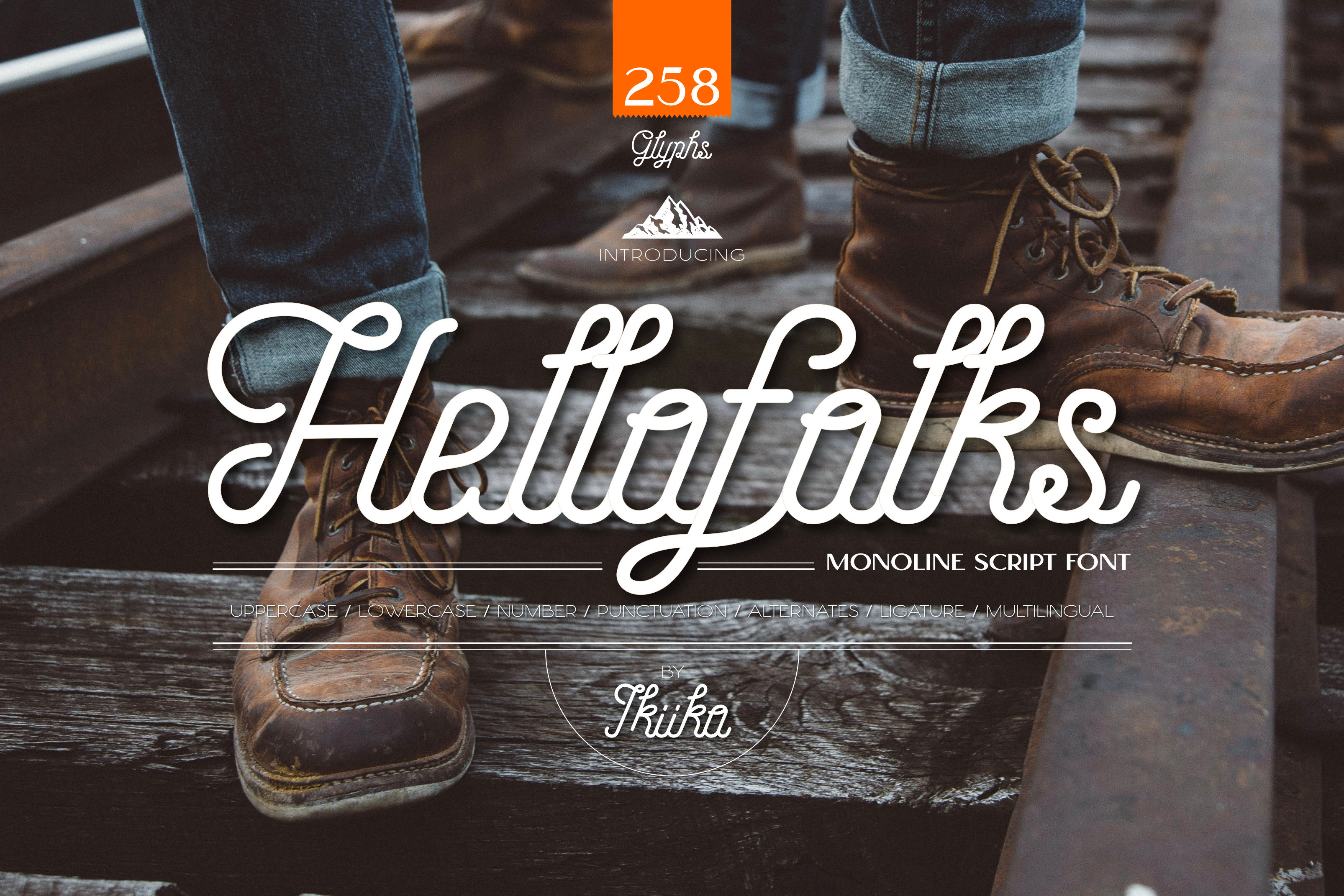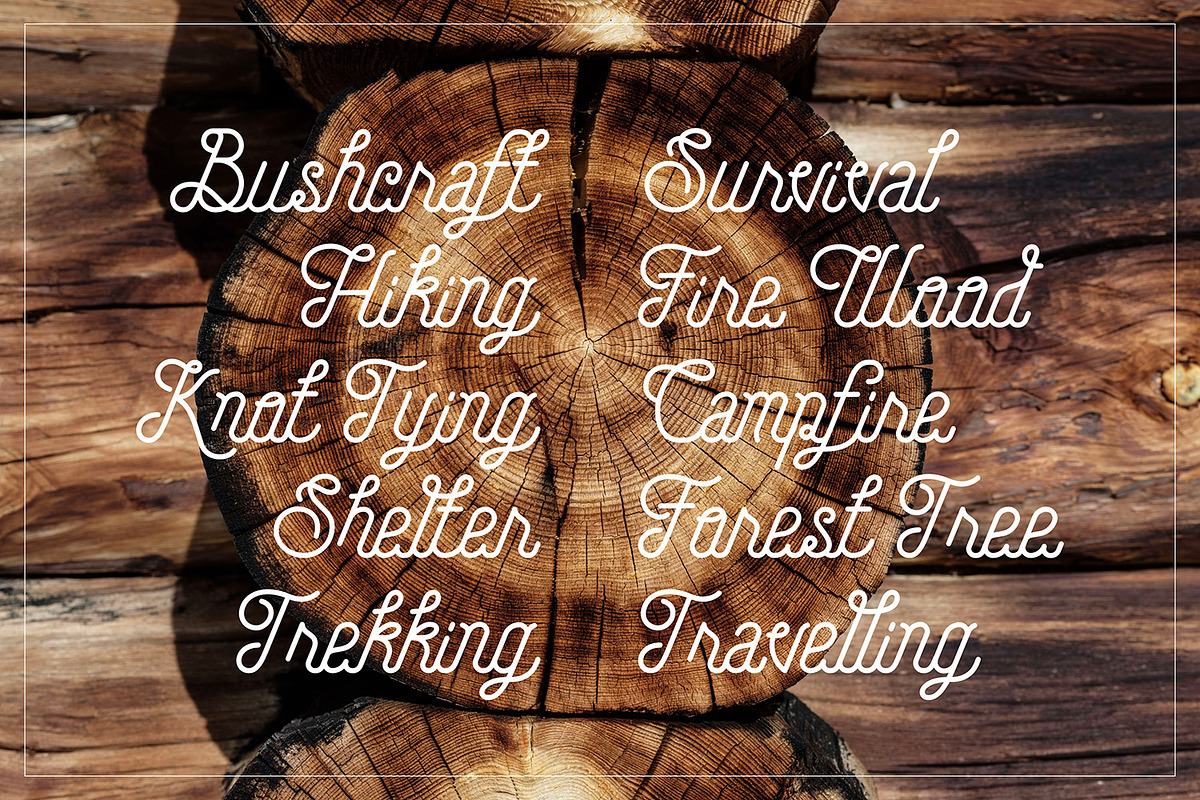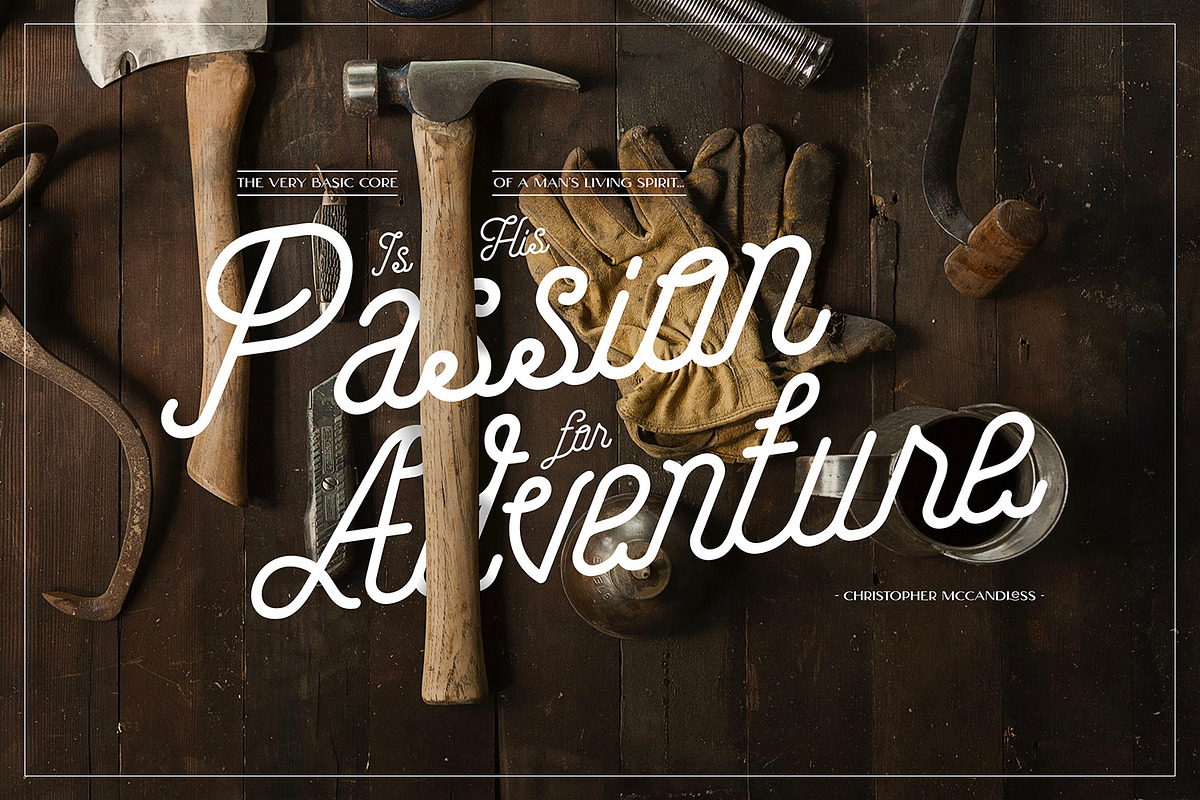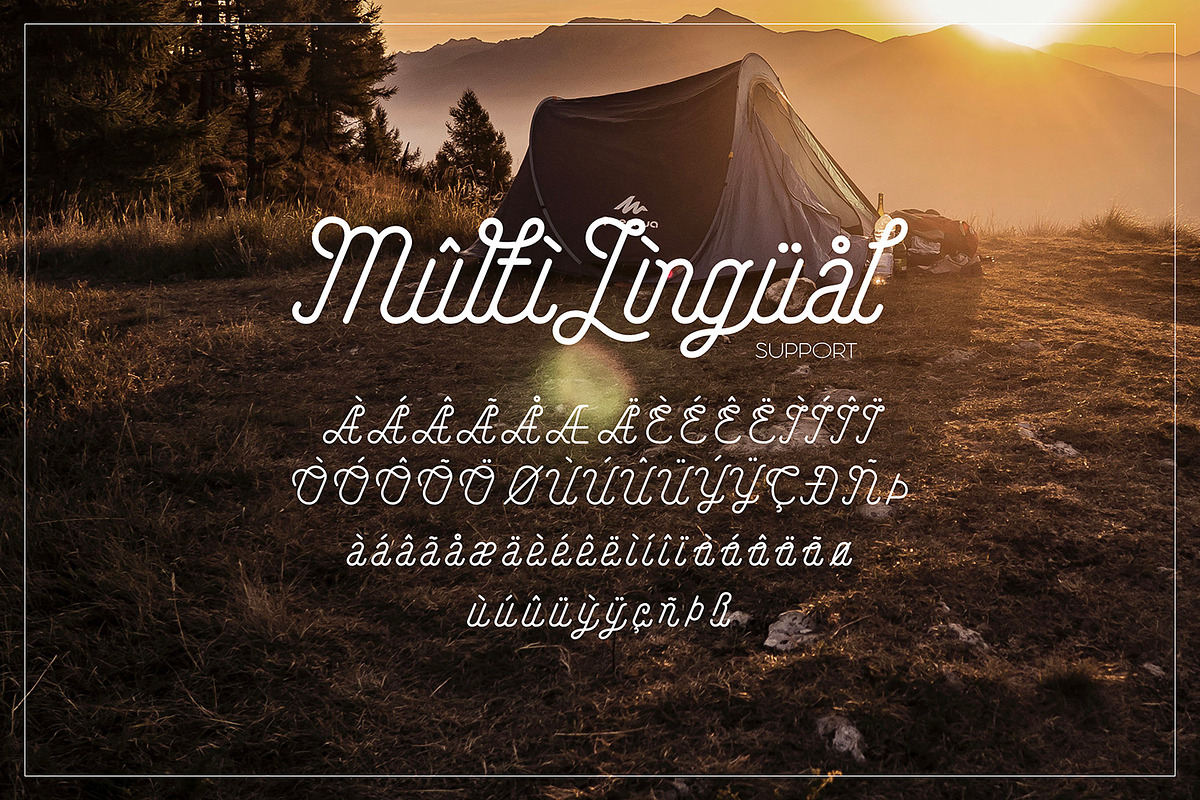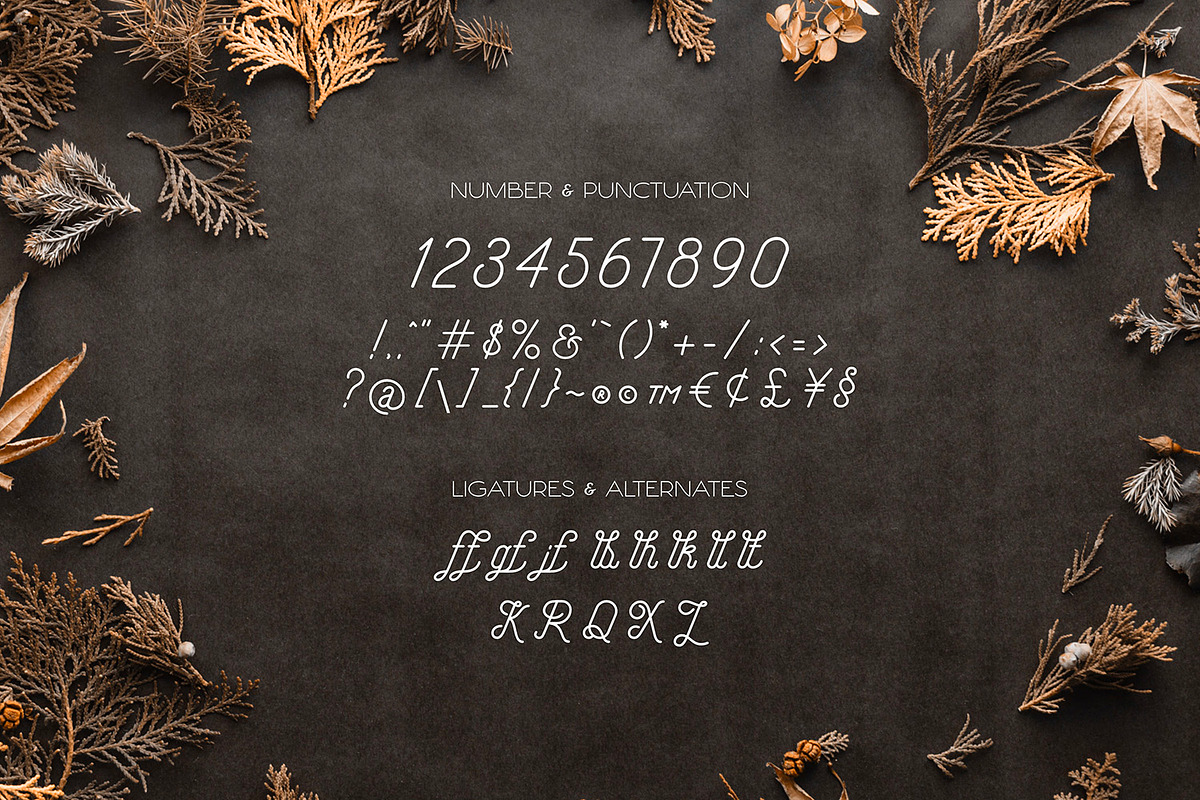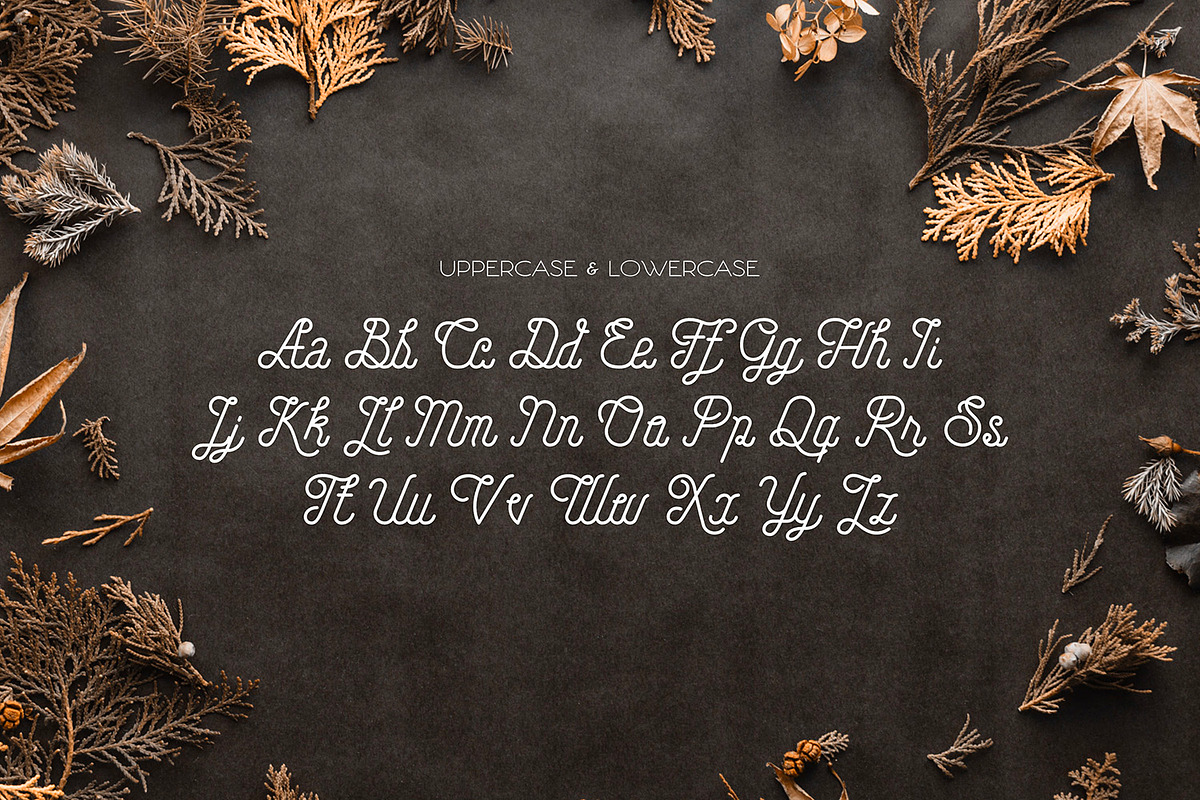
Hellofolks - Monoline Script Font
Proudly present Hellofolks - Monoline Script Font, created by ikiiko.
Hellofolks is a sweet monoline script font that simply exudes a pleasant vintage aesthetic. It is ideal for establishing a cozy and friendly ambiance with a sense of the outdoors or camping. Projects involving the outdoors, camping, or any other outdoor activity are perfect candidates for this font. Whether you're creating rustic branding, campfire invites, rustic signage, nature-inspired packaging, or woodland-themed branding, Hellofolks will expertly add a dash of vintage realism to your designs.
In Hellofolks, each character has been carefully created to retain legibility and exude a rustic charm. Whether you use it for headlines, body text, or decorative components in your designs, its adaptability shines through.
This font is perfect for an elegant & luxury logo, travel & adventure blog, fashion brand, food & beverages logo, magazine layout, clothes, lettering, quotes, and so much more.
- Number & Punctuation